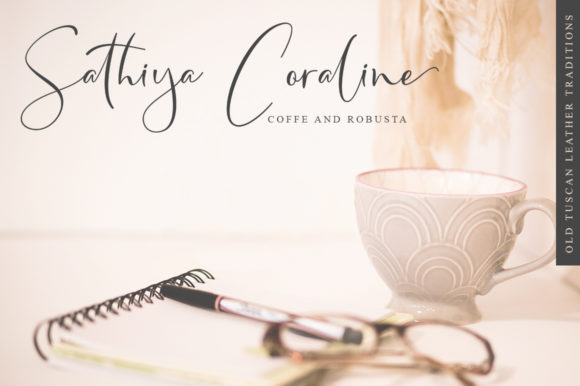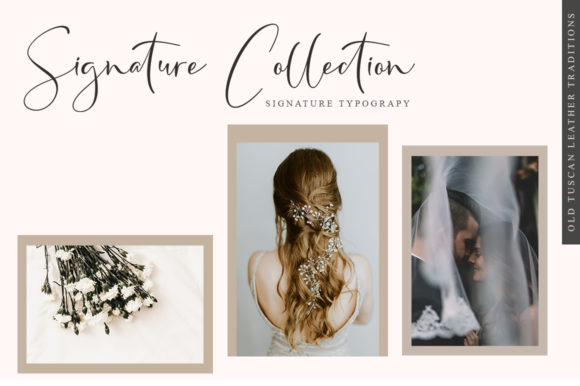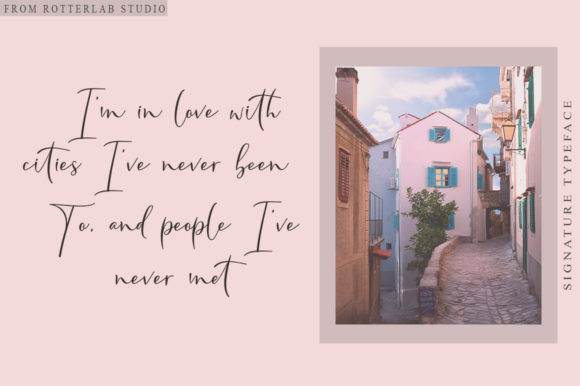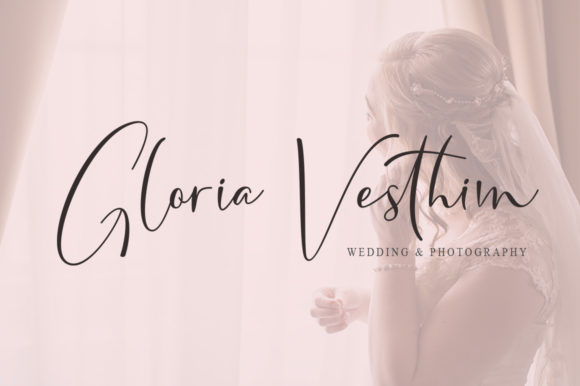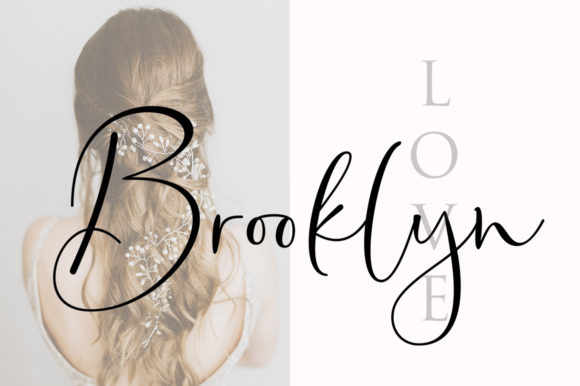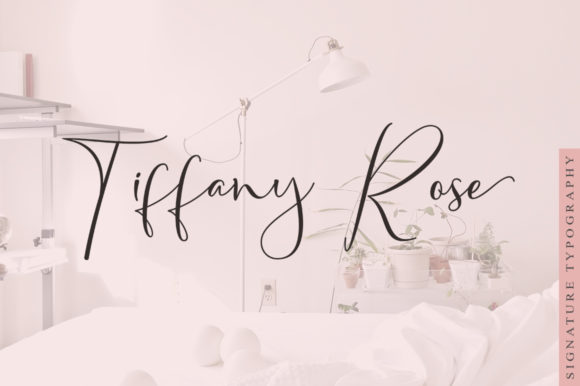
Introduction to Nagatha Christie Font
Nagatha Christie is a stunning handwritten font with a beautiful feel.
It will turn any design project into a true stand out .